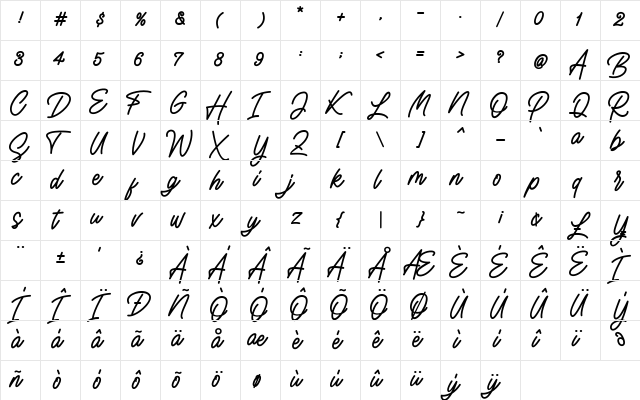
Watasyina Regular
Design Context for Watasyina Typeface
Watasyina is a composed and adaptable typeface that performs quietly and consistently across a wide range of design contexts.